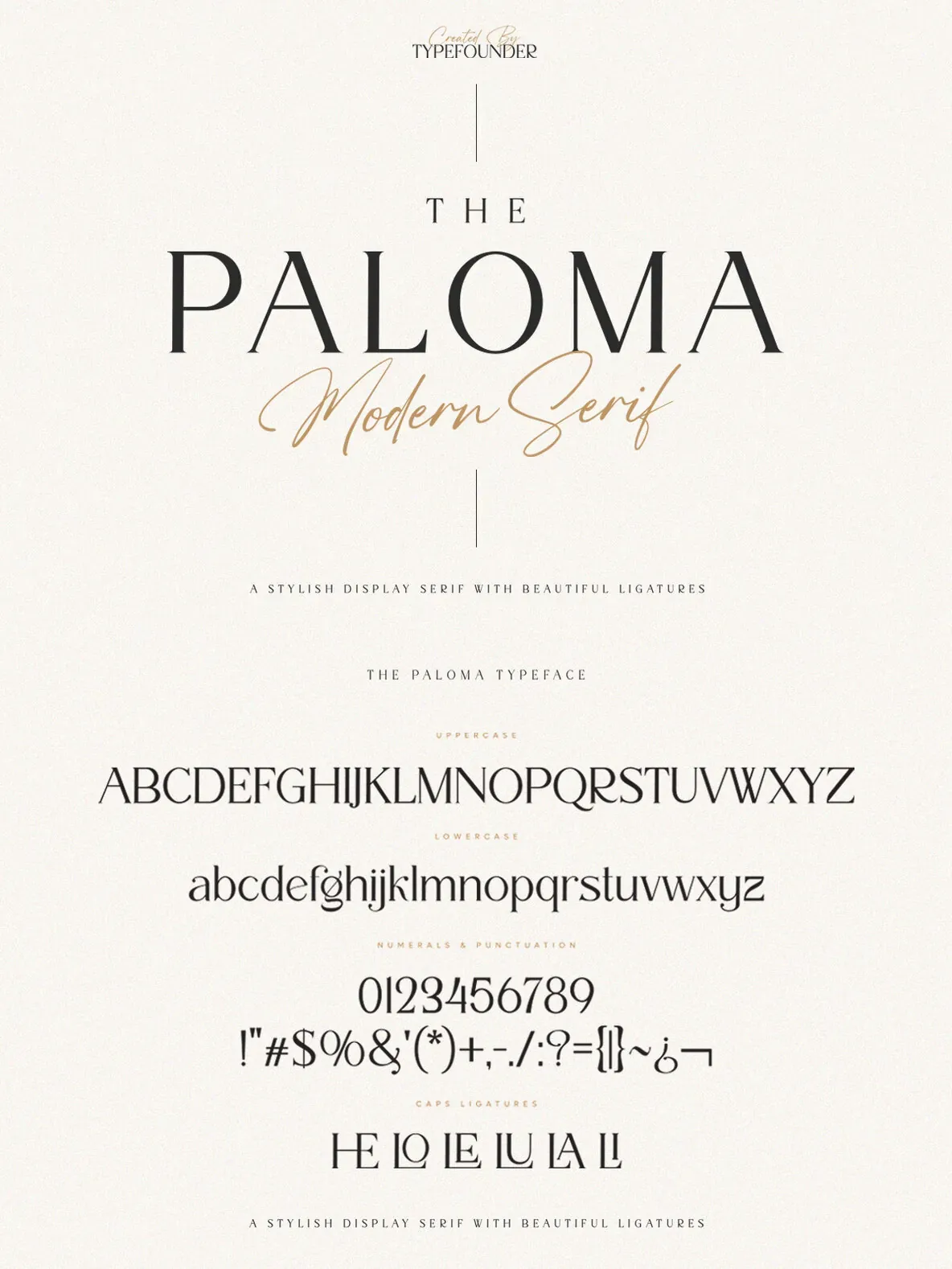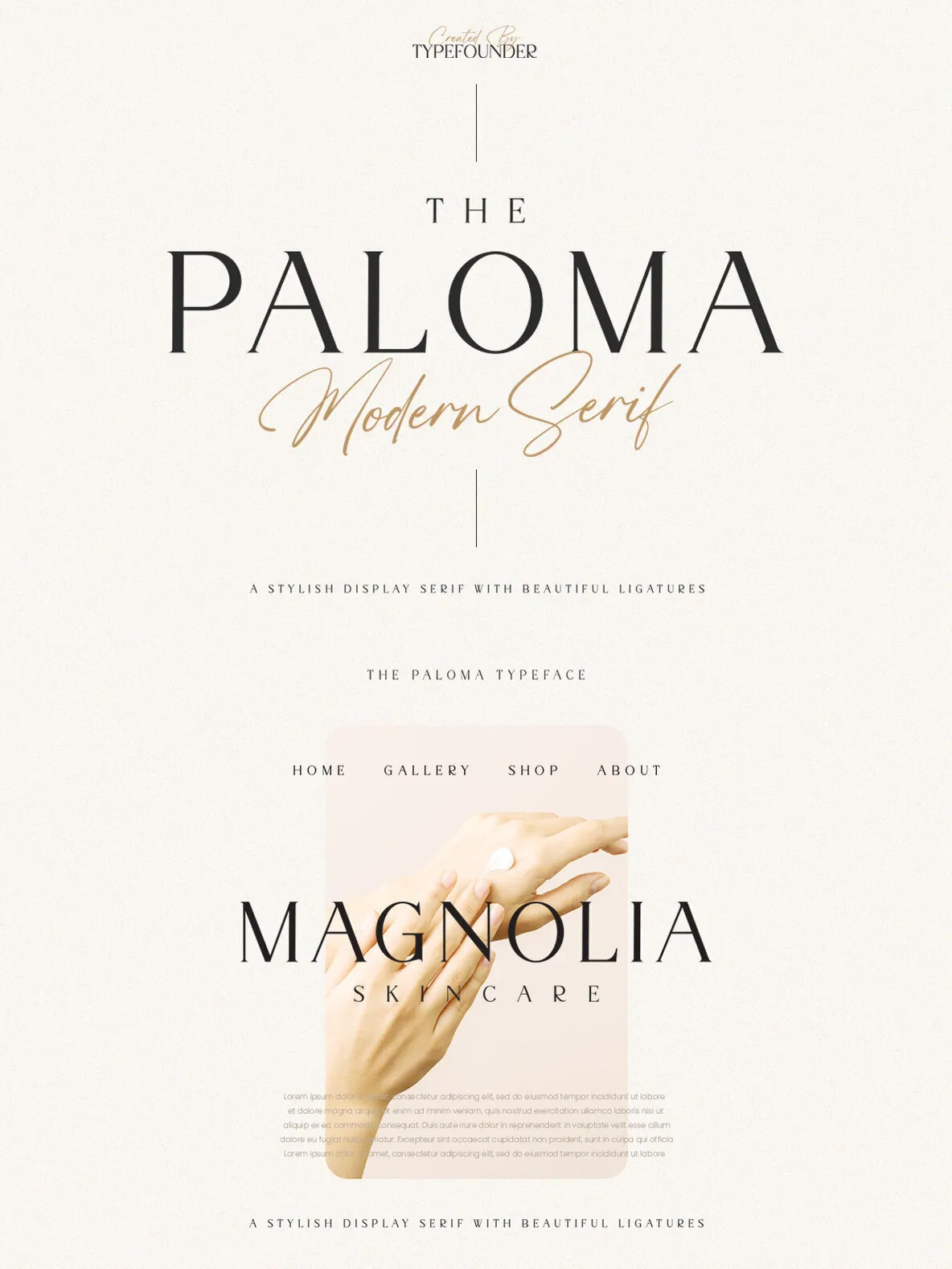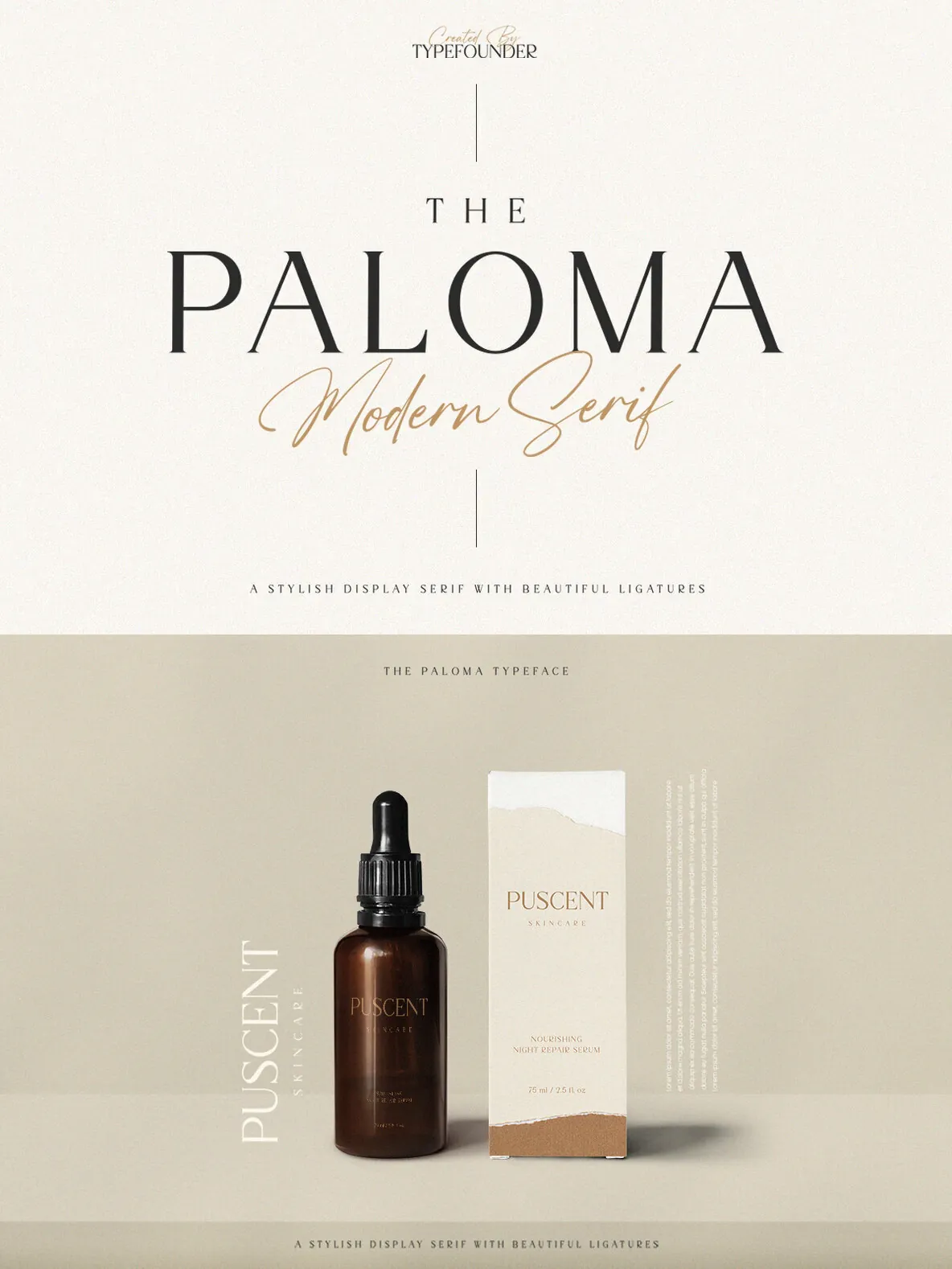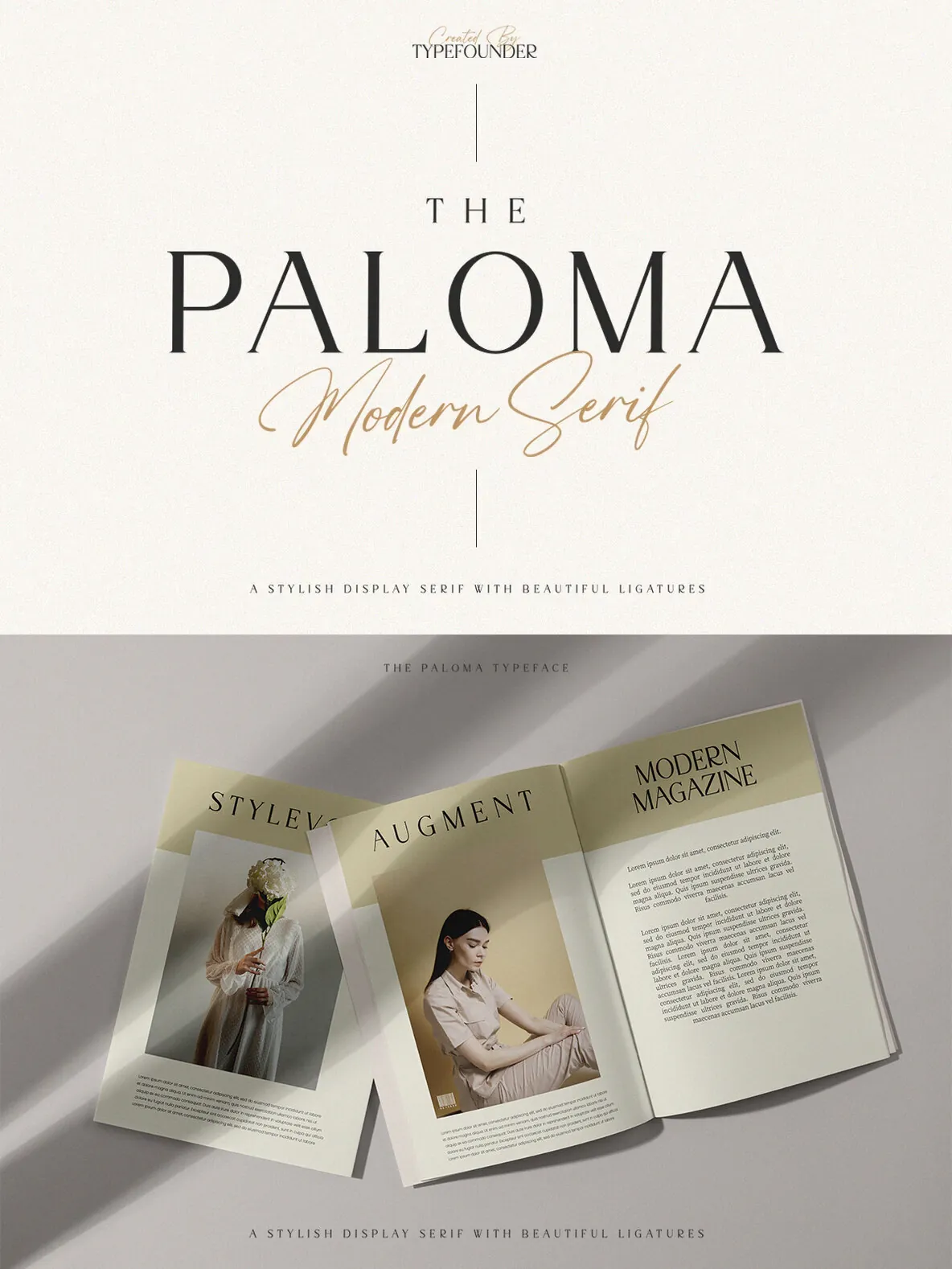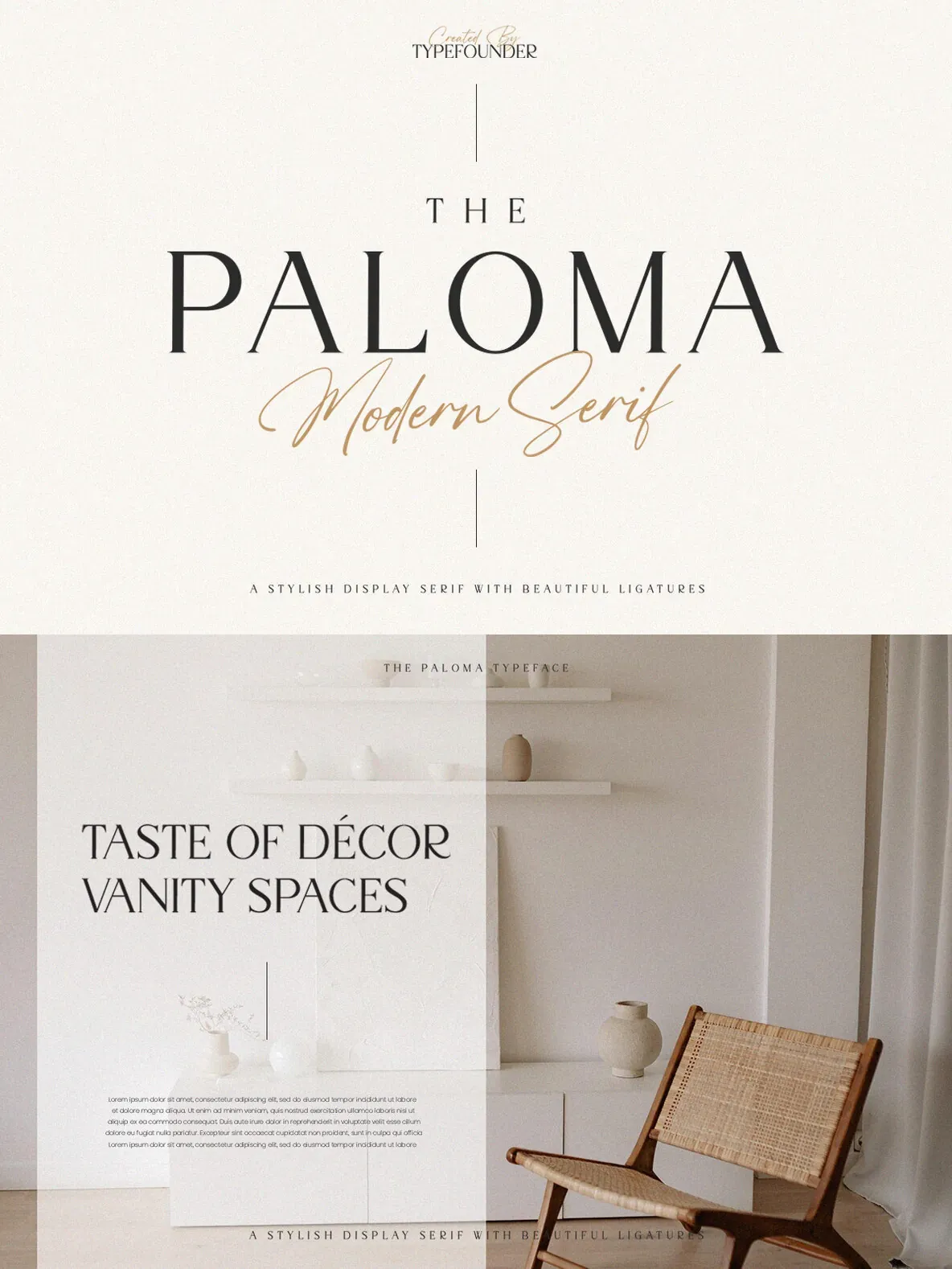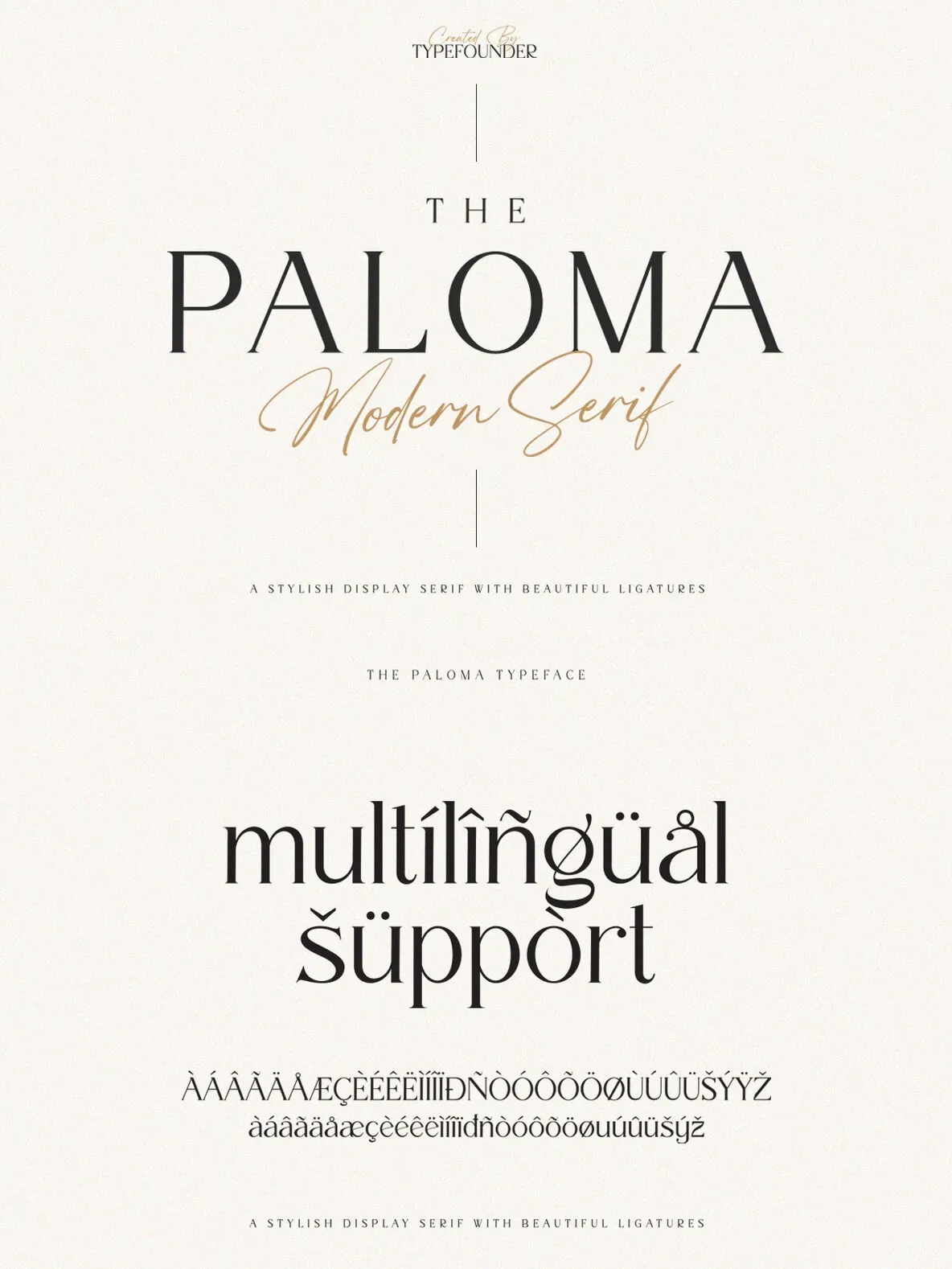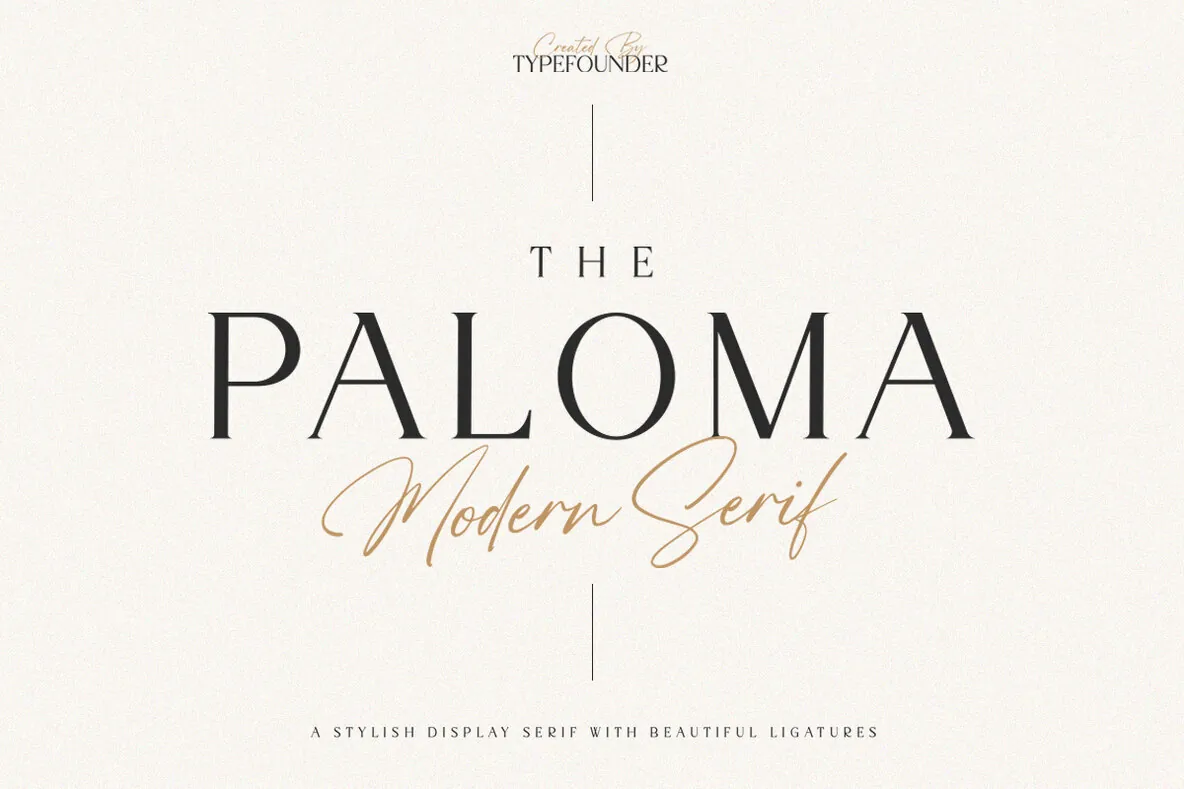
The Paloma Font
The Paloma is an elegant typeface with the perfect amount of contrast that will make it pop on your next branding project. With multiple ligature options, this modern serif can be used in any setting—whether you’re looking for large or small text blocks to display marks like italics!